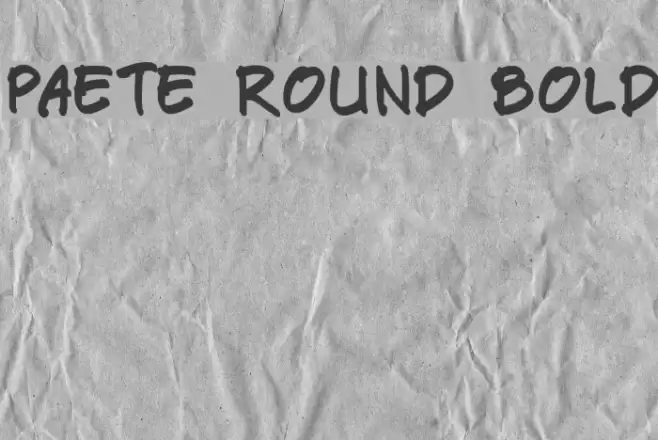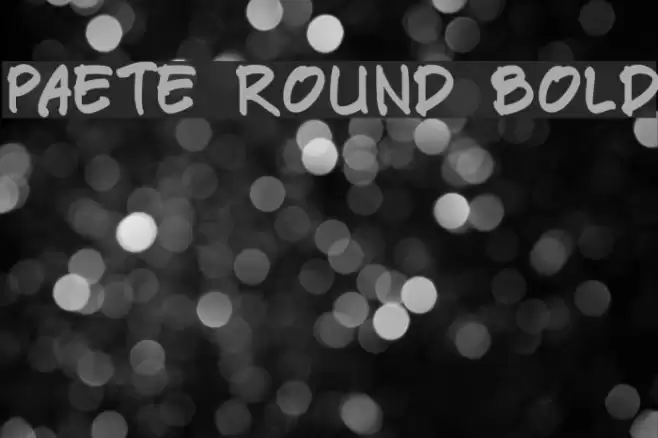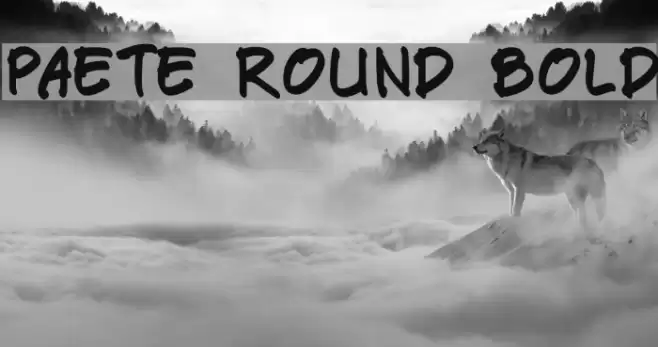
Paete Round Bold Font
Paete Round Bold Description
This font features a bold, rounded style with a handwritten appearance. The characters are thick and have a playful, casual vibe, making them stand out with a strong presence. The strokes are consistent in their rounded edges, giving the font a friendly and approachable look. The letters are slightly slanted, adding to the dynamic and energetic feel. This font is ideal for projects that require a personal touch or a fun, informal tone. The numbers and special characters maintain the same bold and rounded characteristics, ensuring consistency across all elements.
A bold, rounded, handwritten-style font with a playful and casual vibe from Uncategorized fonts.
- Proposed Projects: Ideal for greeting cards, children's books, playful branding, and casual social media graphics.
- Overall Style: Casual
- Use Case: Headlines, Logos, Informal Invitations